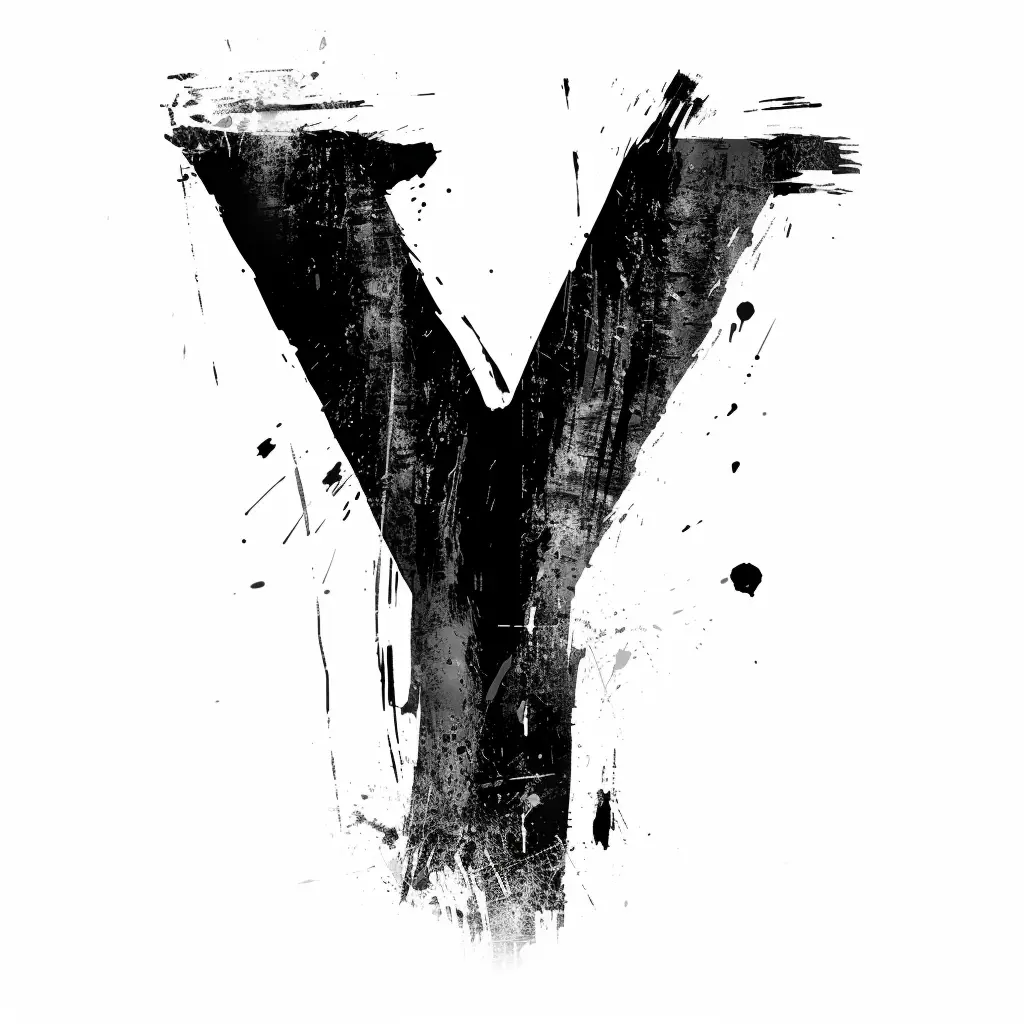
The image features a bold, stylized letter "Y" rendered in black with a textured, grunge aesthetic. The design incorporates rough brush strokes, splatters, and distressed details, set against a clean white background. The monochromatic color scheme emphasizes the letter’s rugged, artistic appearance, with subtle variations in black tones adding depth and visual interest.